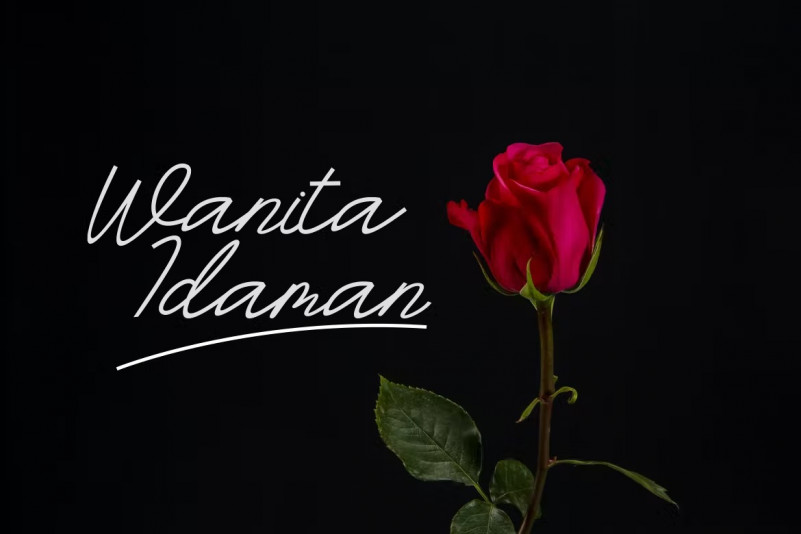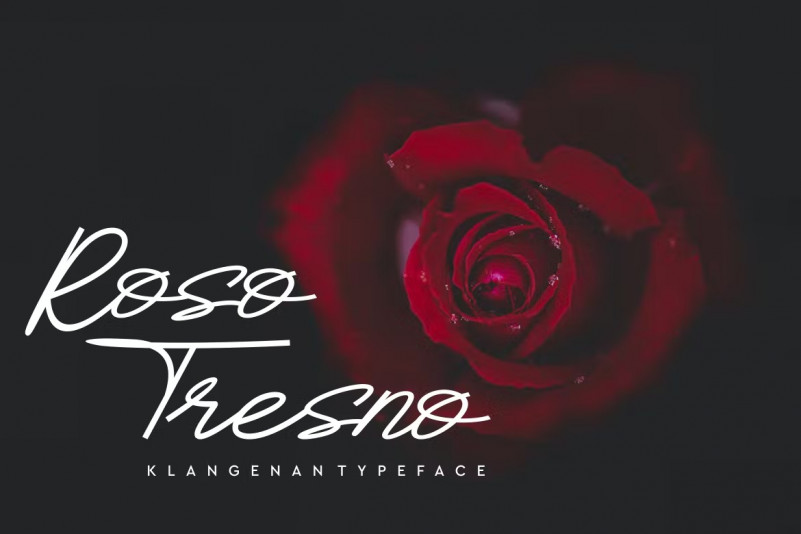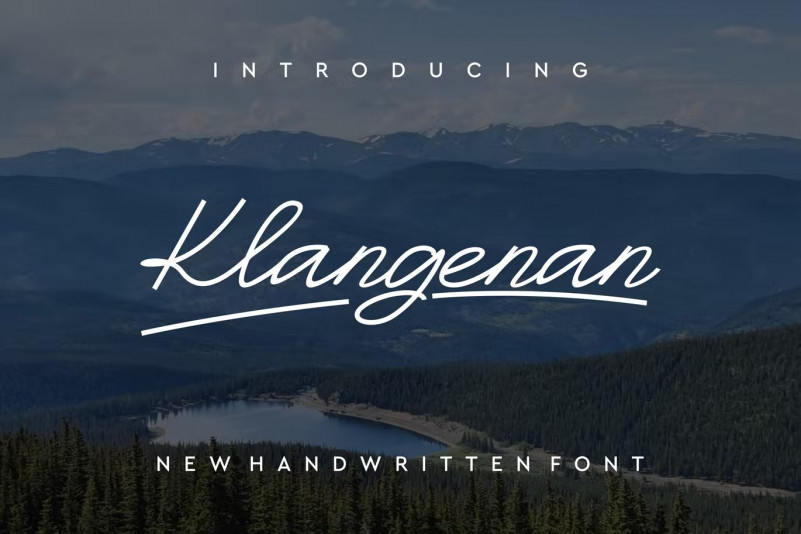
Klangenan Font
Klangenan Font – Modern Font is a bold and authentic display font. The font is suitable for any branding project like logo, t-shirt printing, esport, and many more. outstanding in a wide range of contexts.